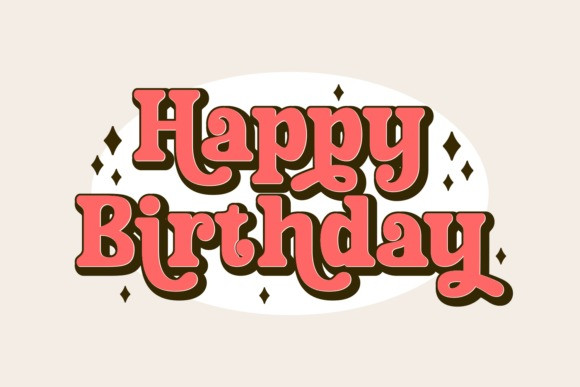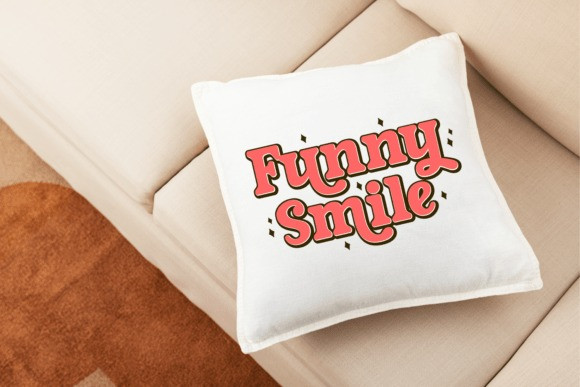
Retro Fighter Font
Retro Fighter Font a harmonious fusion of time-honored allure and modern refinement. This font family pays homage to the retro aesthetic, delivering visually captivating typography that adds a vintage flair to any design. Each character is individually hand-drawn, adding a layer of bespoke, artisan charm. With a clean and simple structure, these fonts are a versatile addition to all your creative endeavours – be it a social media post, a standout photo caption, or a school project. Retro Fighter Fonts fluently cater to various languages and are equally striking in print, producing clear and sharp typography in everything from greeting cards to glossy magazines.